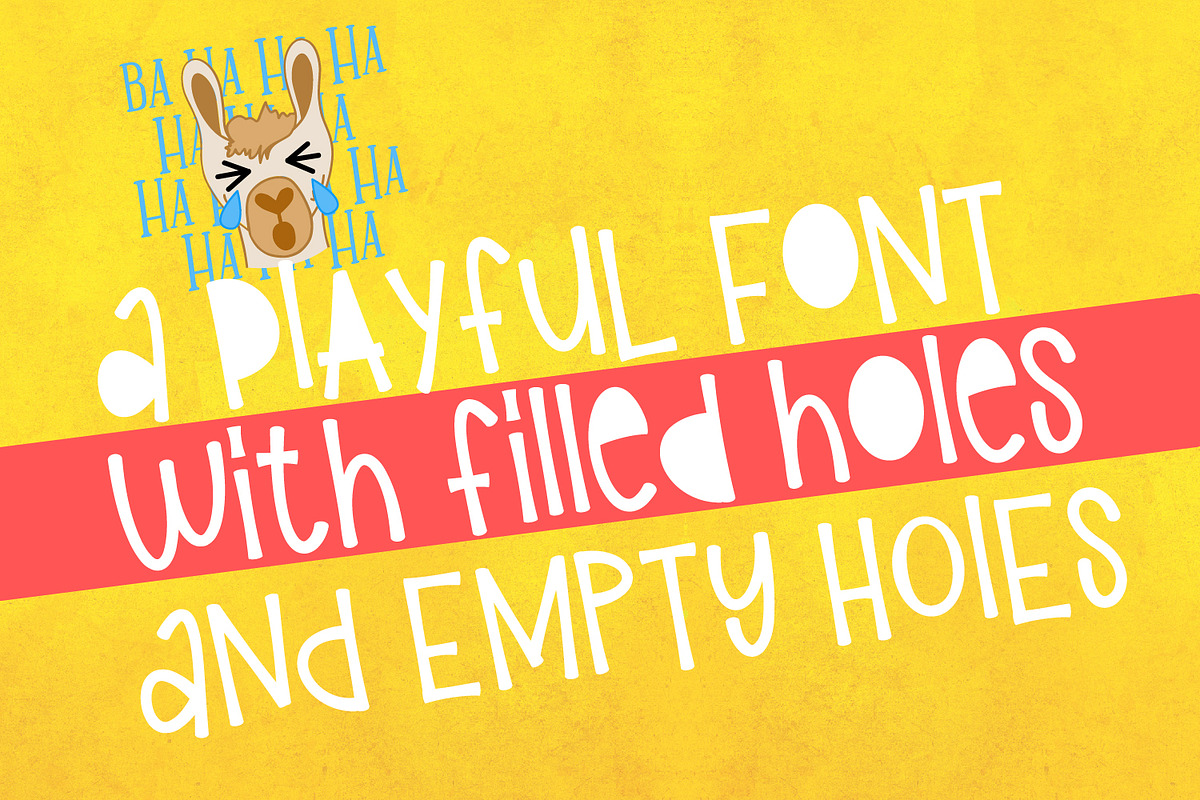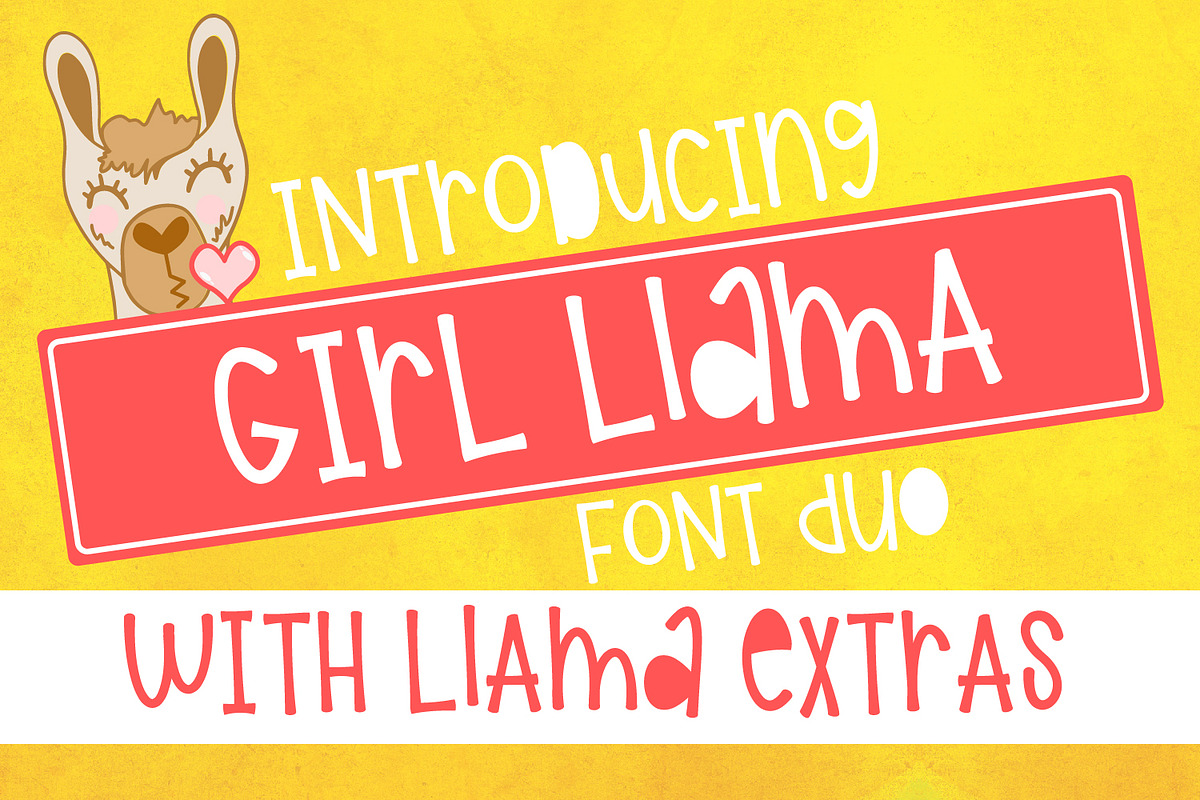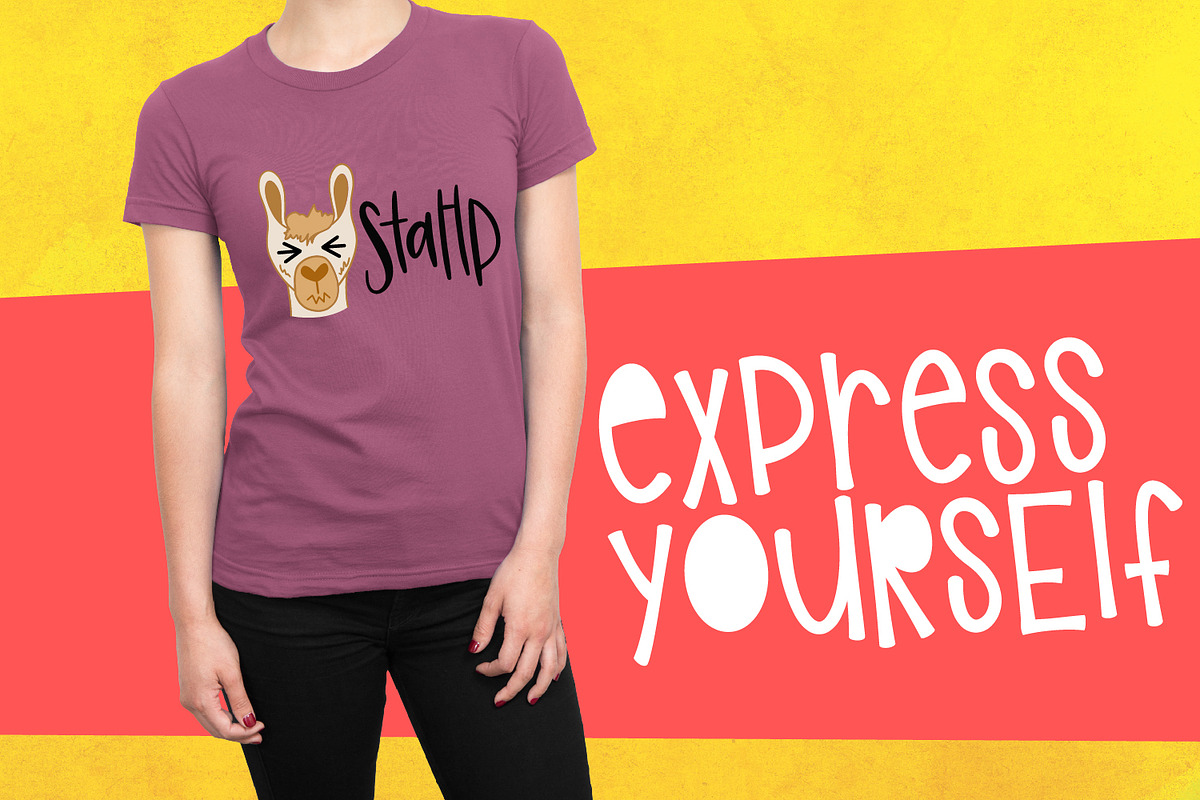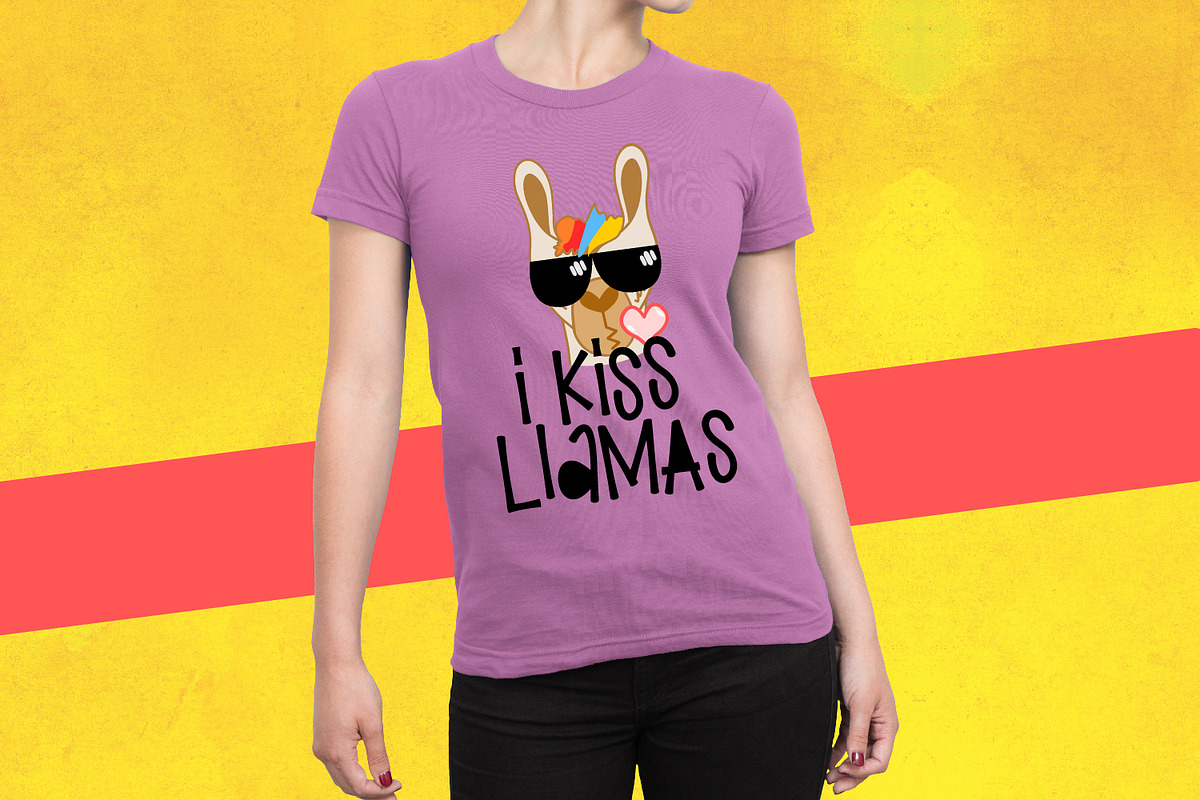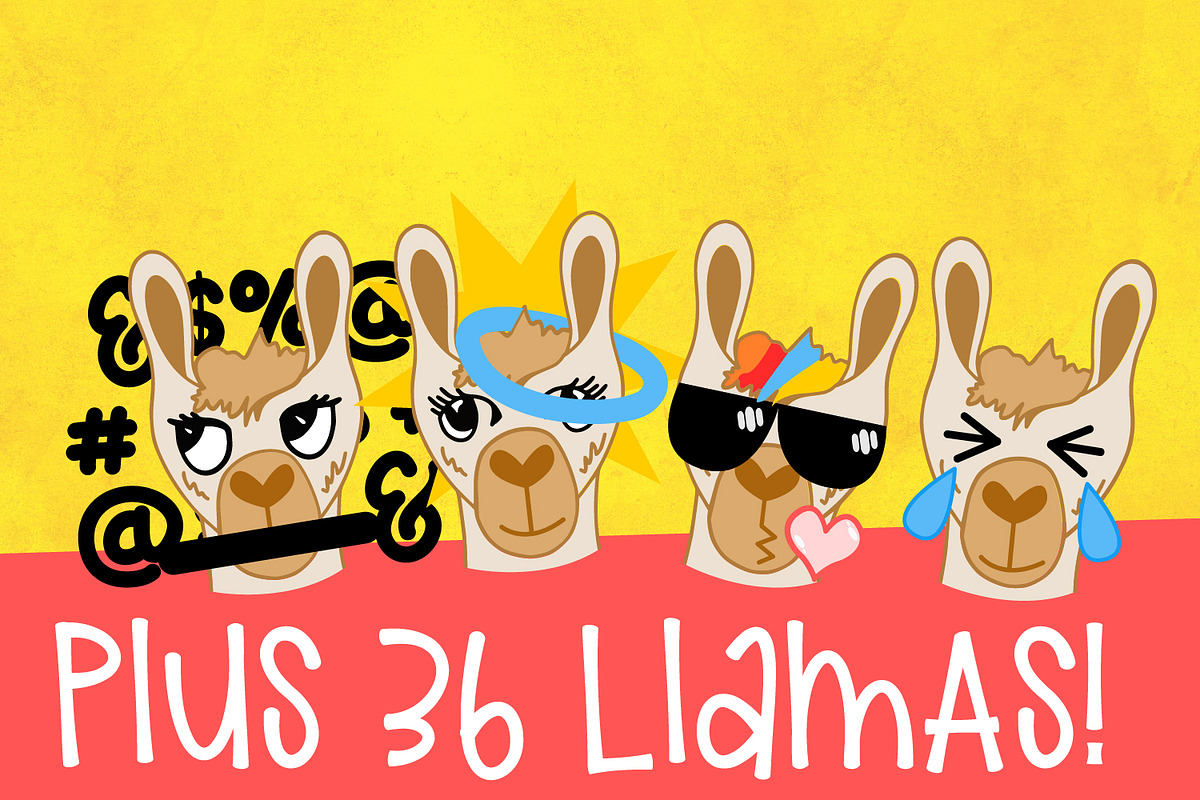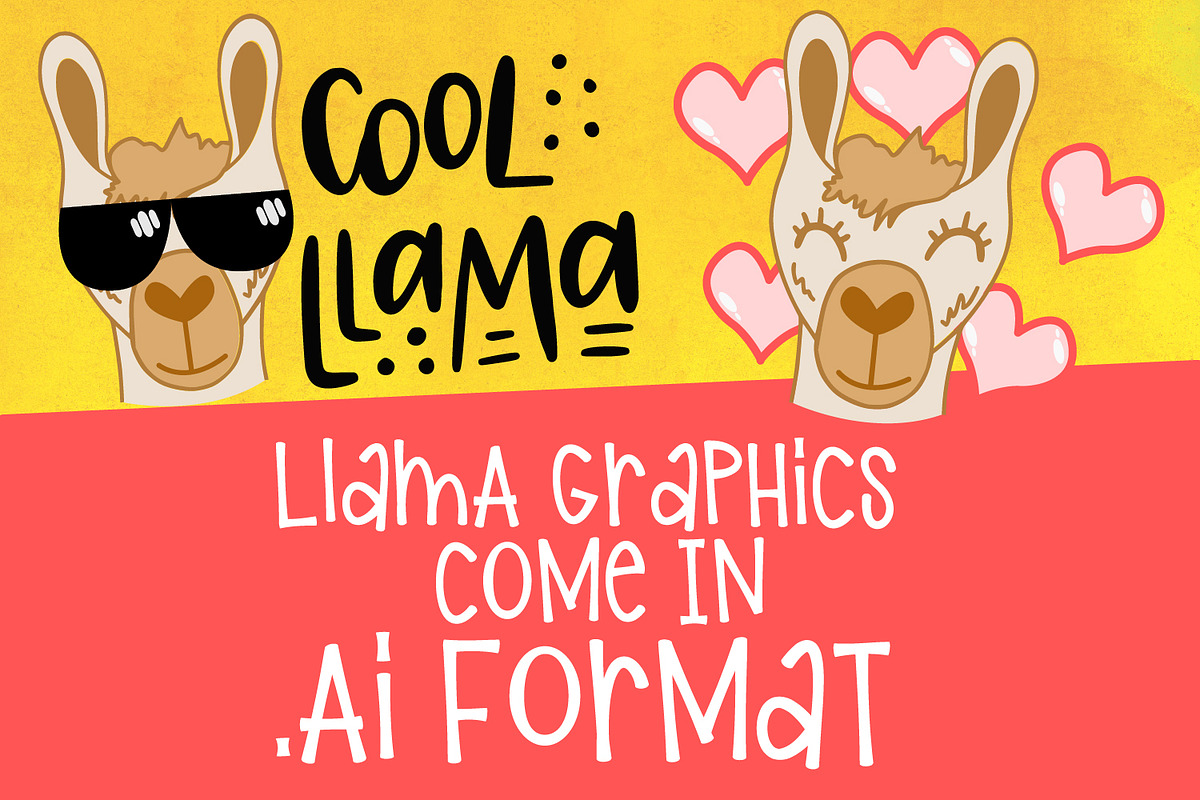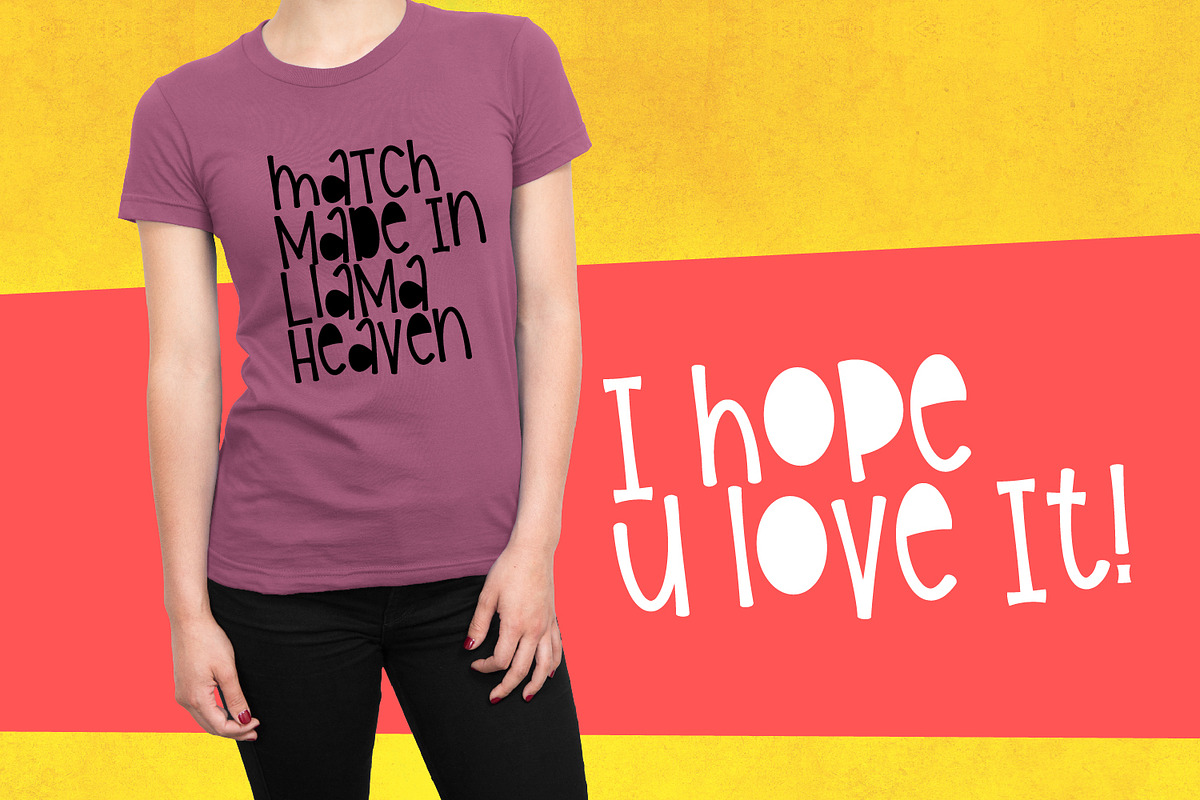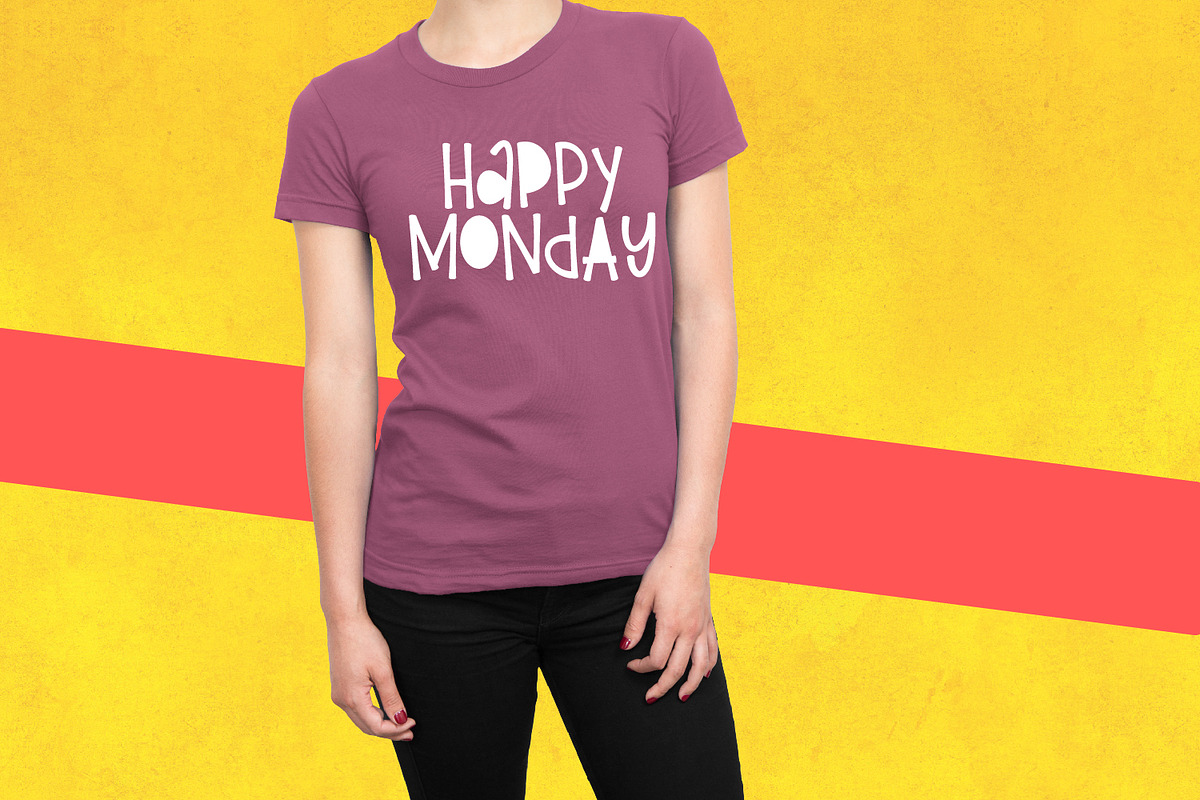
Girl Llama - Font Duo With Extras
Why Girl Llama - Font Duo With Extras is worth a look
Girl Llama - Font Duo With Extras by CraftyLittleNodes fits naturally into Branding, posters, packaging, typography.